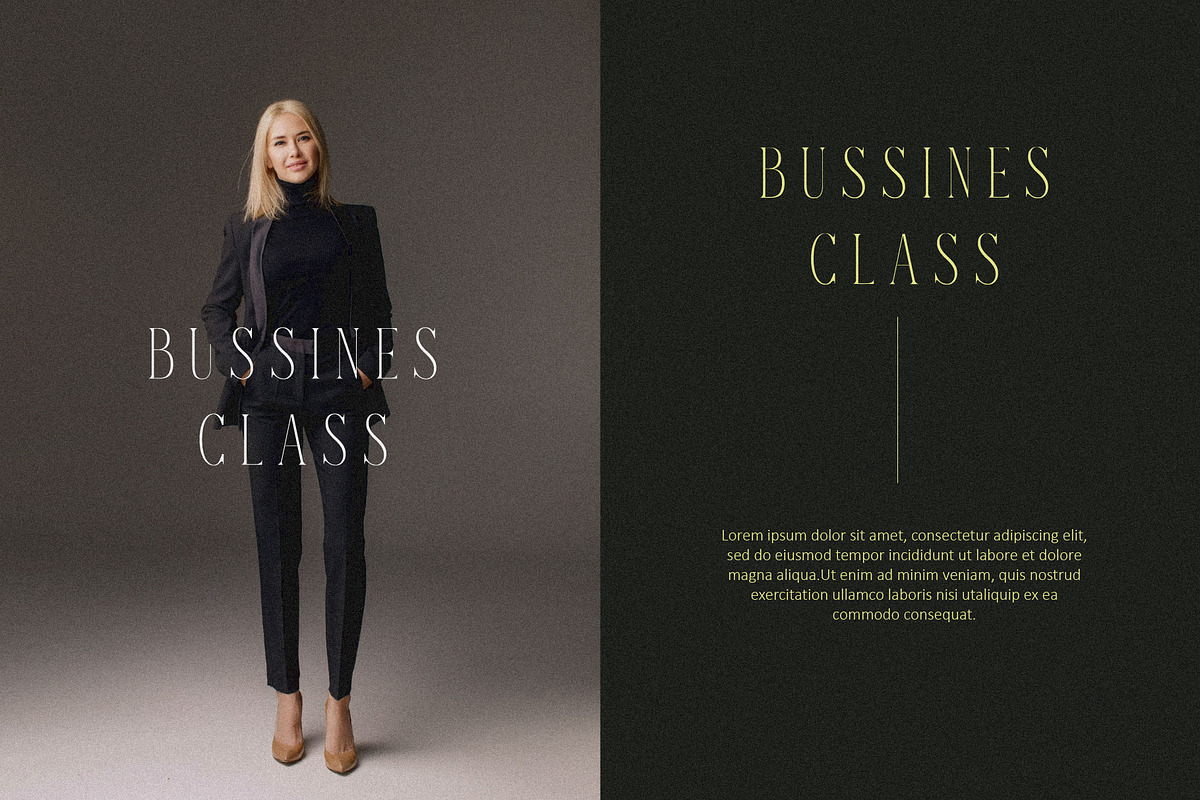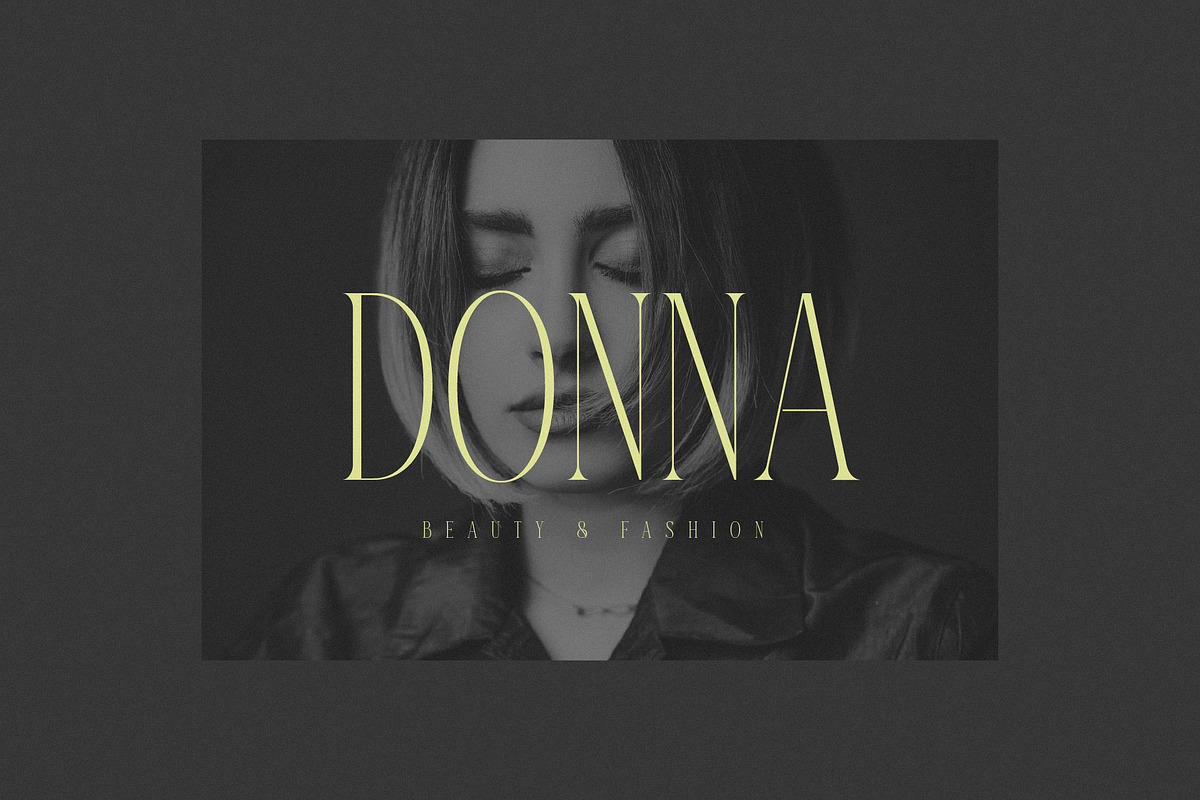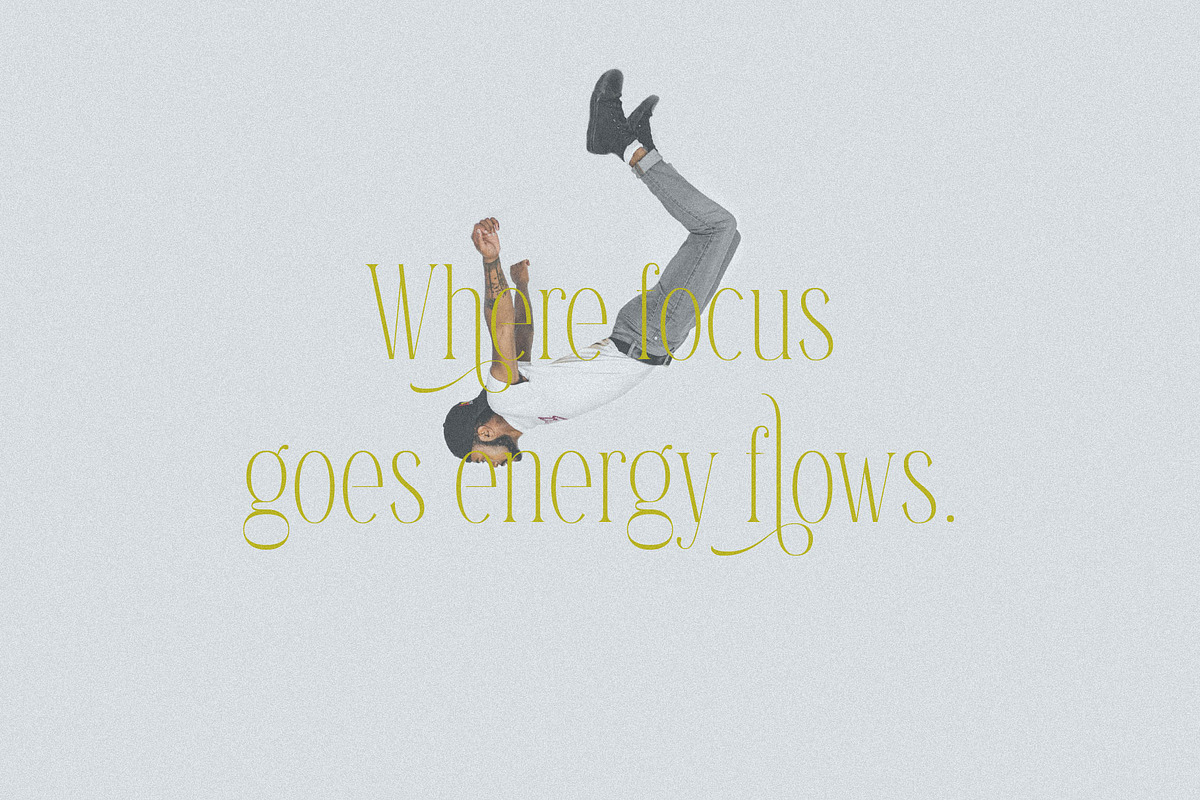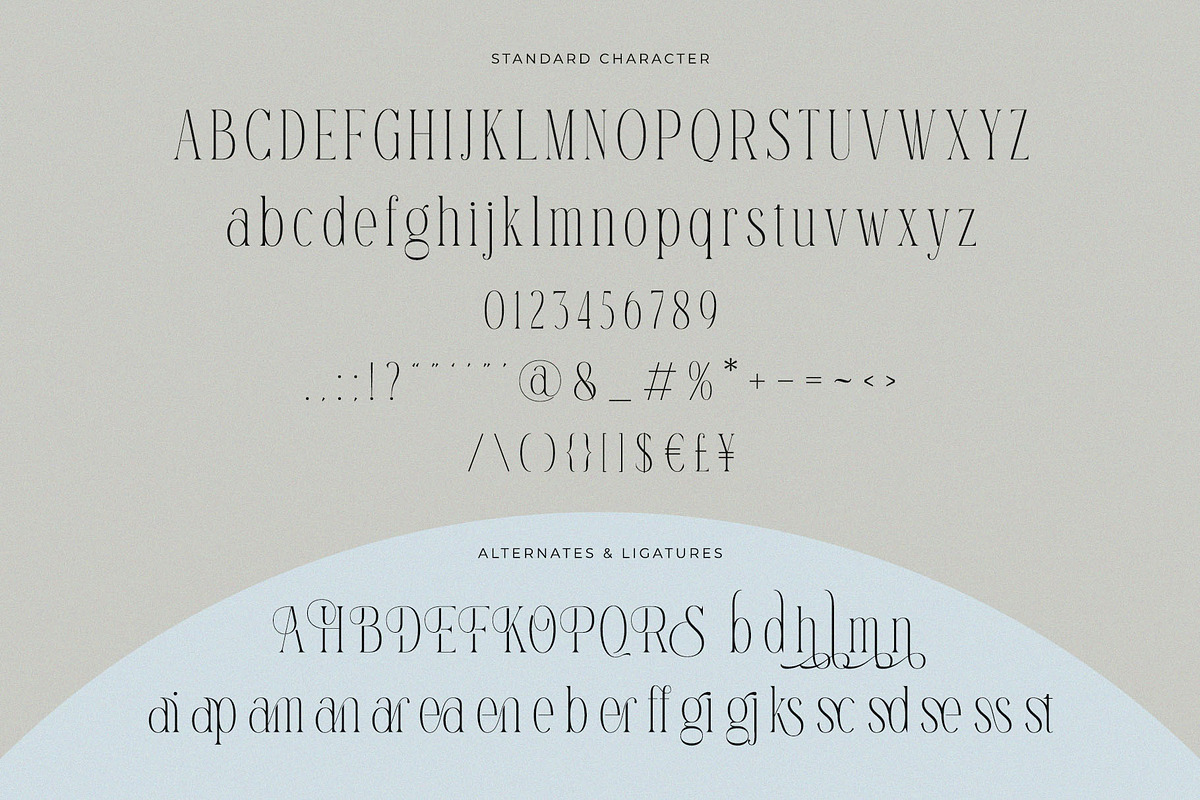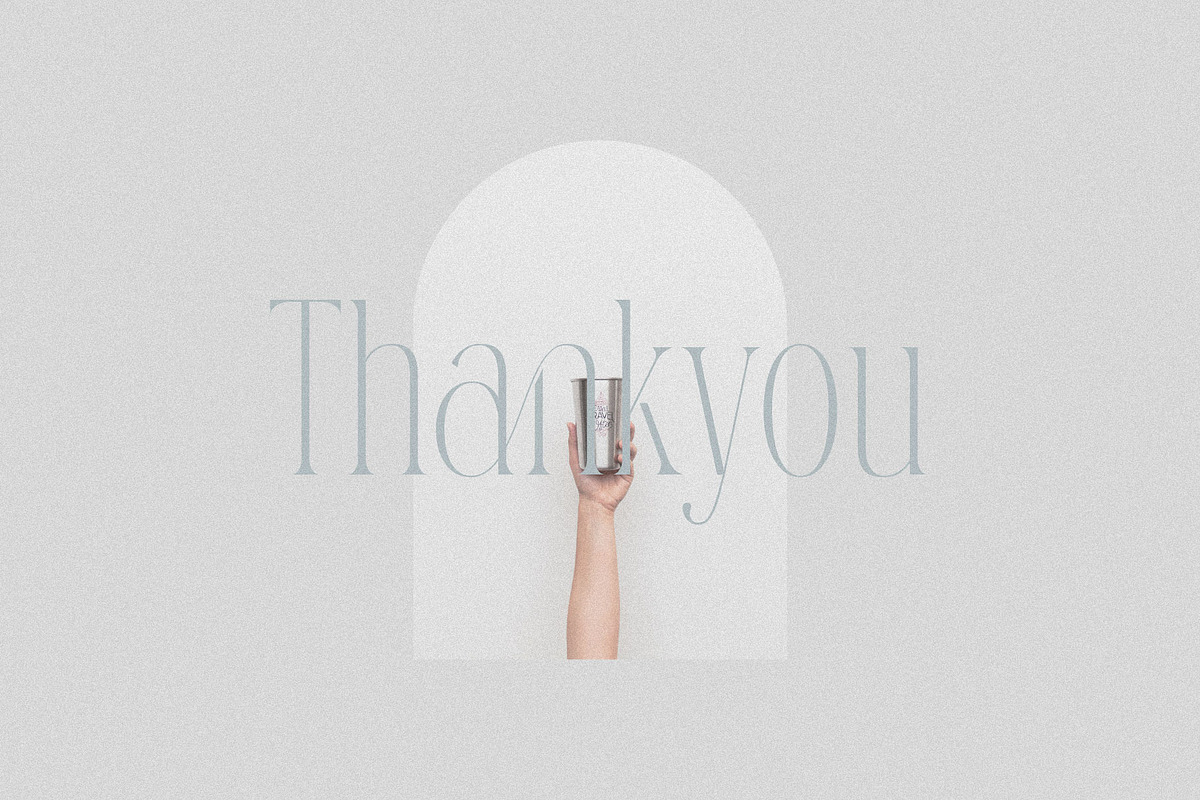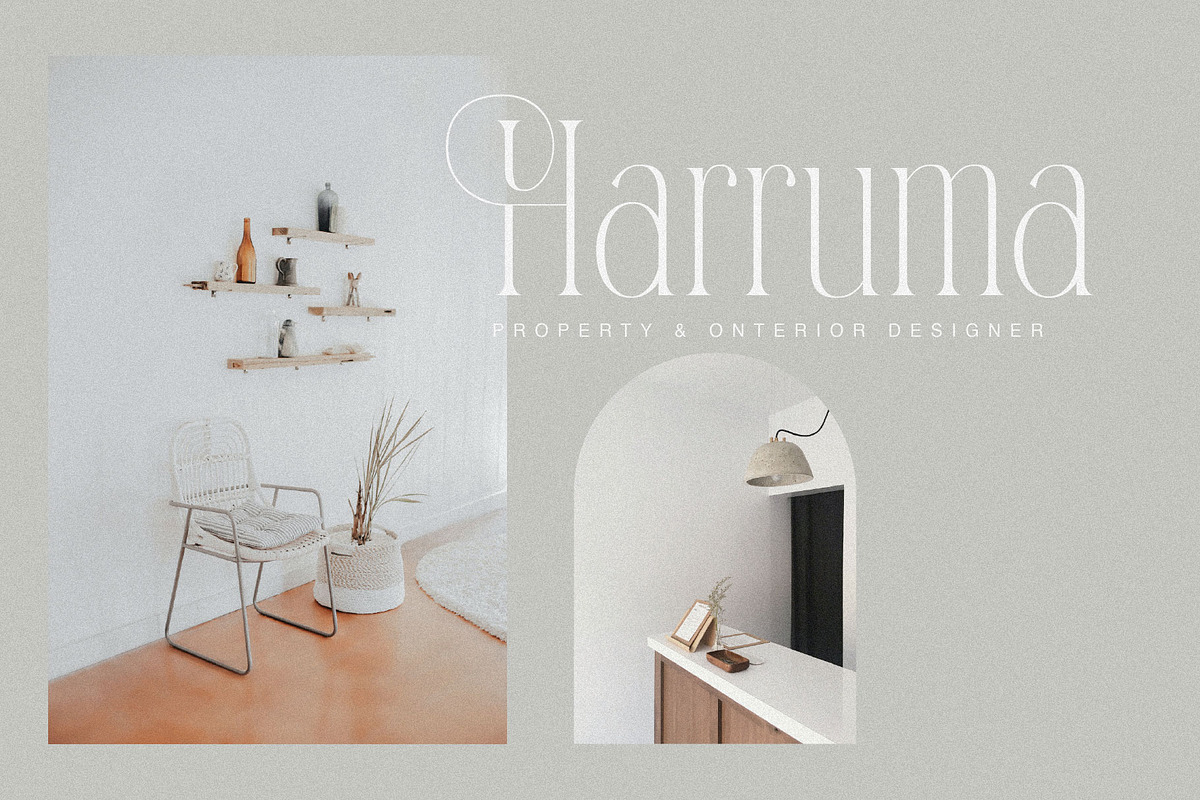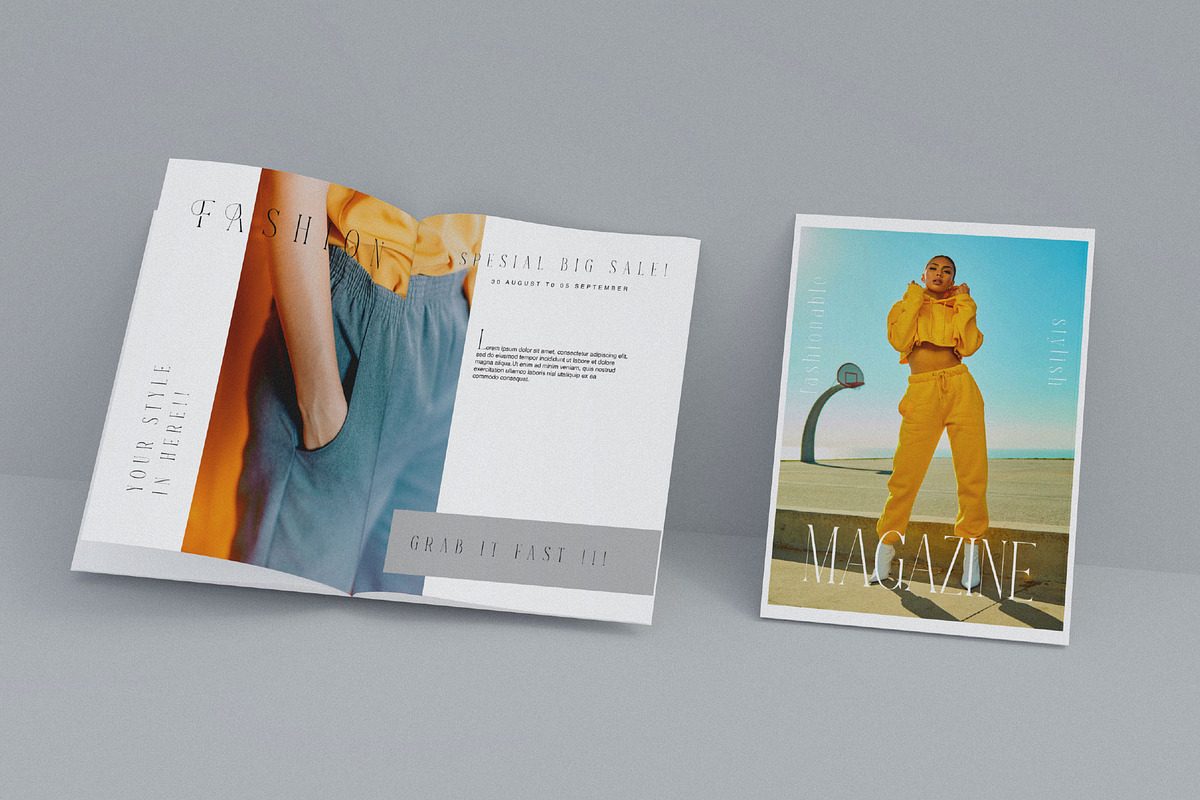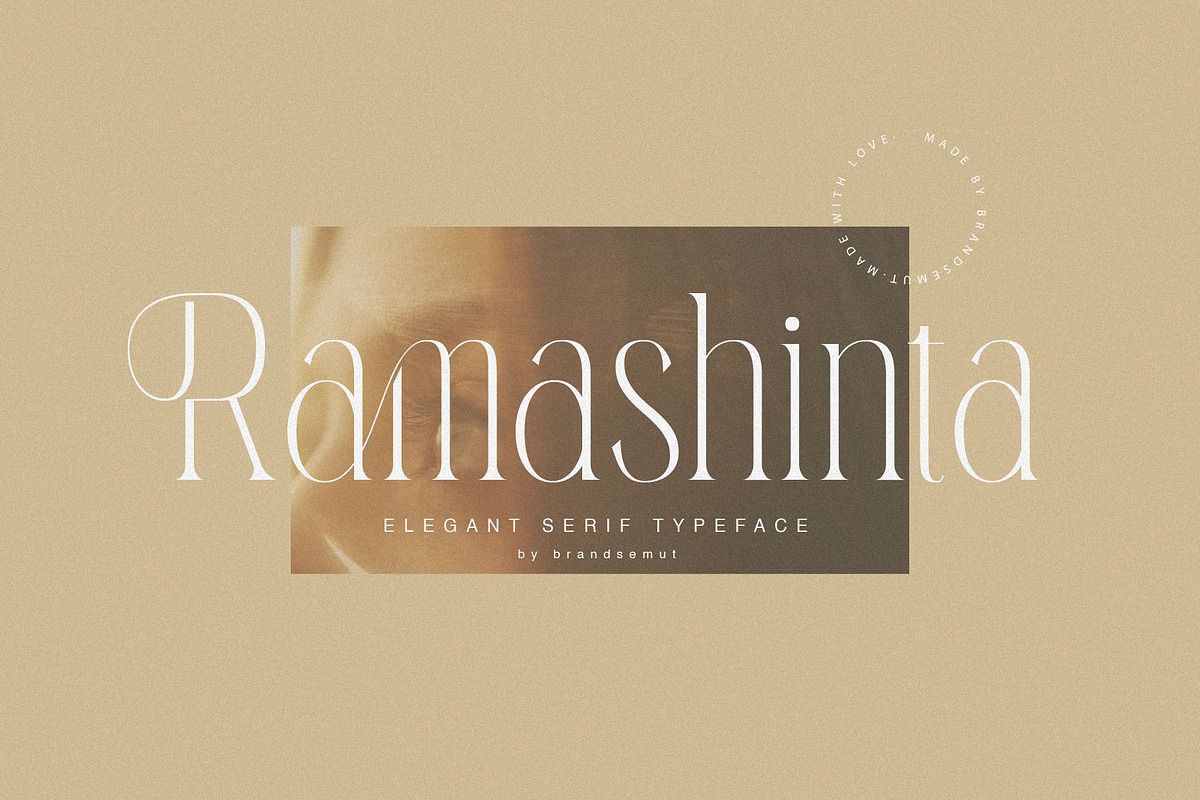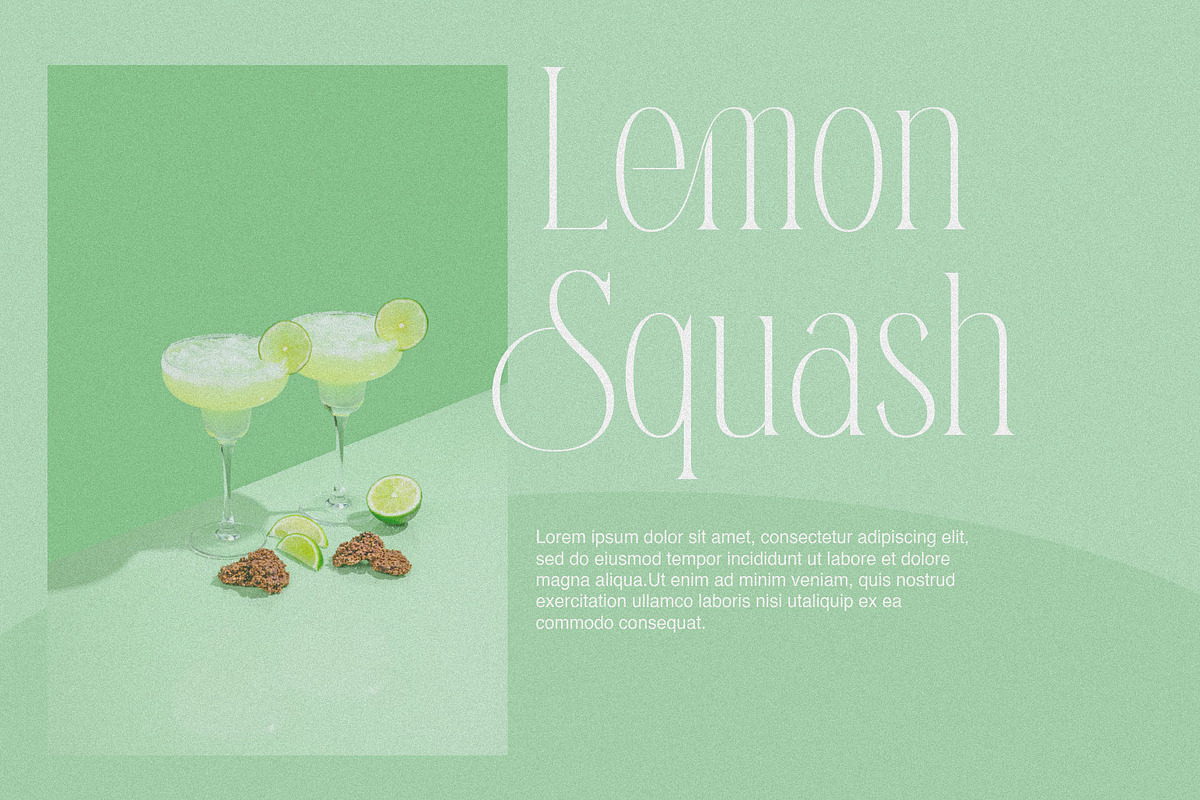
Ramashinta // Stylish Modern Serif
Introducing our new "Ramashinta", Modern ligature typeface with Unique, Classy and Stylish. Is perfect for branding, logos, invitation, master heads, and more.
Ramashinta Features :
- Multilanguage